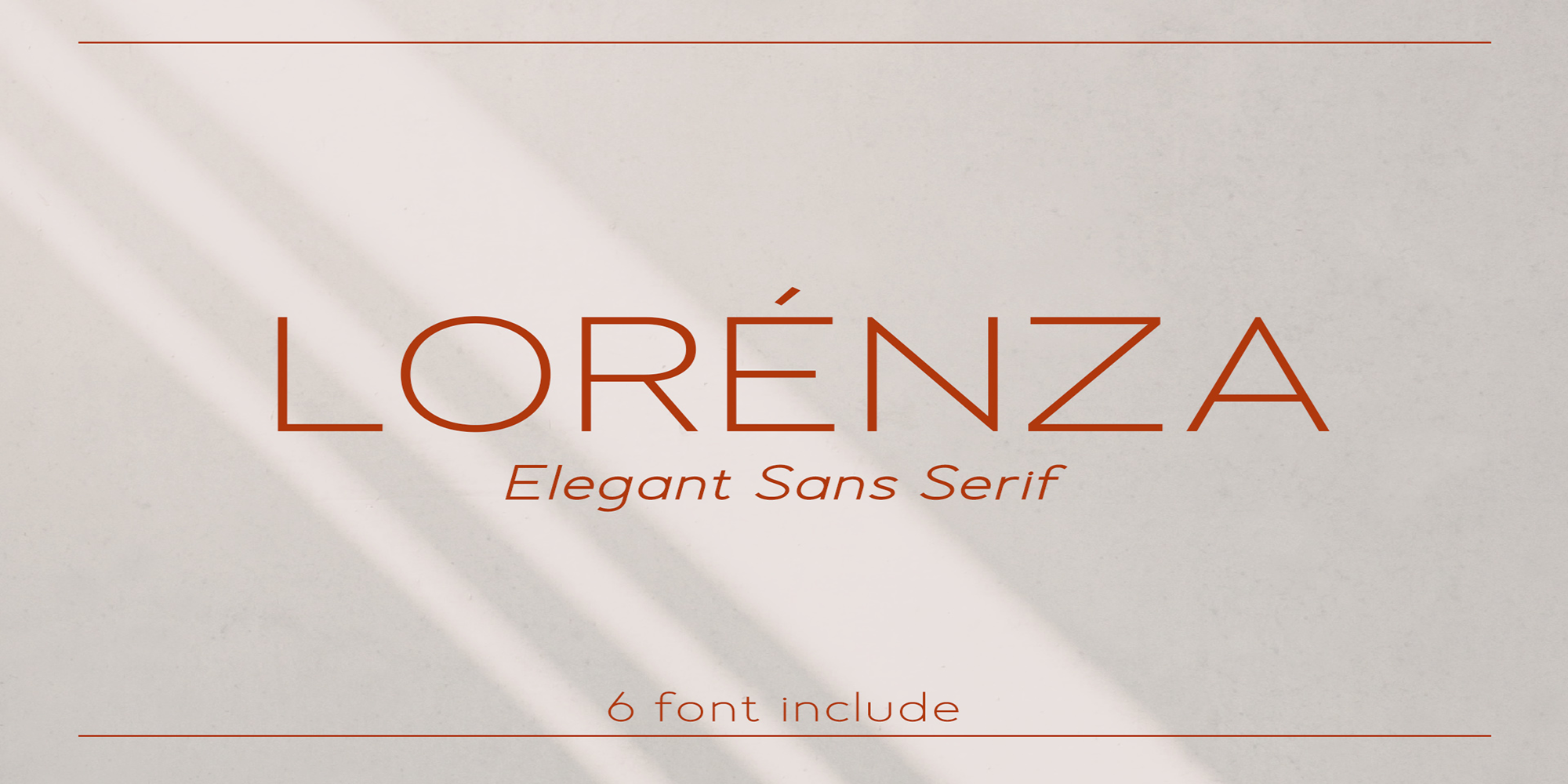
The Lorenza Font is ideal for elegant feminine branding, sophisticated fashion labels, luxury cosmetics packaging, boutique hotel signage, upscale women's magazines, refined jewelry designs, premium spa materials, and graceful wedding stationery. This sophisticated typeface excels in projects for fashion houses, beauty brands, luxury lifestyle companies, women's wellness centers, and businesses targeting discerning female audiences who appreciate timeless elegance and refined sophistication.
What makes the Lorenza Font exciting is its exquisite embodiment of feminine grace with sophisticated elegance and timeless beauty. The font features delicately crafted letterforms with refined proportions and subtle feminine details that create an immediate association with luxury, sophistication, and graceful living. Its elegant character and refined sensibility make it perfect for brands seeking to connect with sophisticated women who value quality, beauty, and authentic elegance. The font's graceful presence and feminine sophistication transform communications into expressions of refined taste.
The Lorenza Font family includes elegantly-designed variations: Thin Grace, Light Elegance, Regular Sophistication, Medium Refined, Bold Confident, and Display versions. Each style maintains the font's feminine character while offering different levels of visual impact and elegant expression for diverse luxury applications. The family also features decorative flourishes, elegant ornaments, sophisticated ligatures, and refined typographic details that enhance high-end feminine design projects.
Whether you're developing luxury feminine brand identities, creating sophisticated marketing materials, or designing elegant promotional campaigns, the Lorenza Font Free Download provides the perfect solution for projects requiring refined, graceful typography. This exceptional typeface brings genuine feminine sophistication to design work, making it an essential resource for designers celebrating women's elegance, luxury lifestyle branding, and the timeless appeal of graceful, sophisticated femininity.